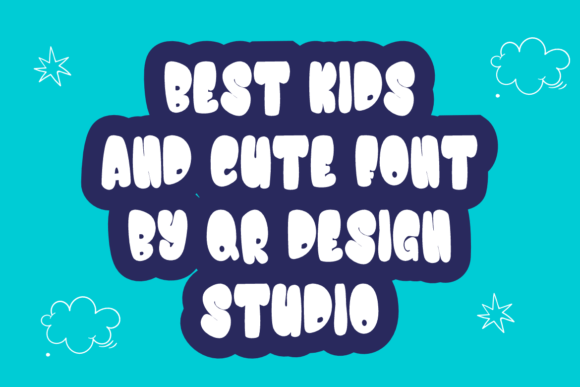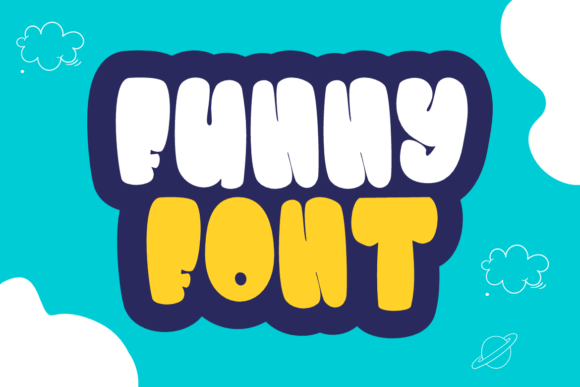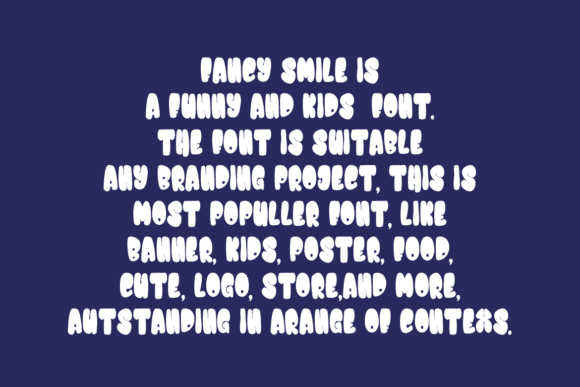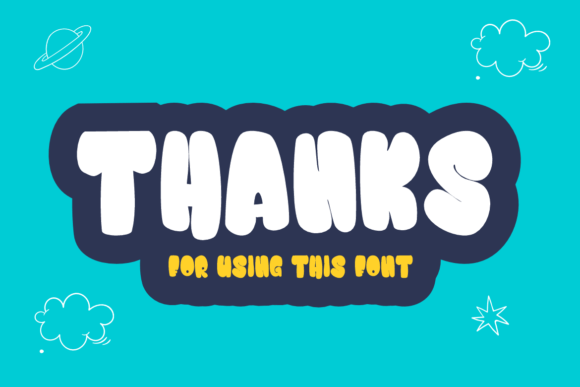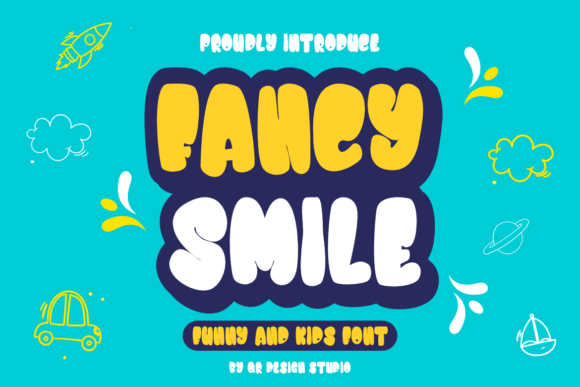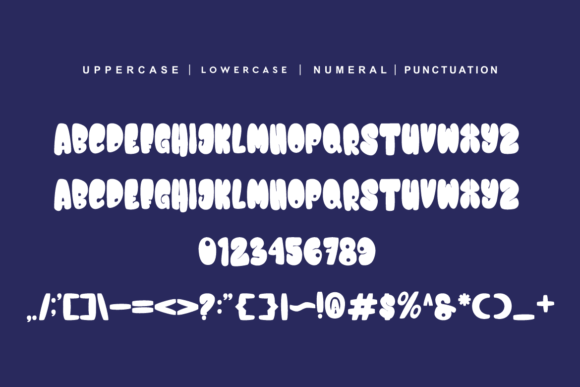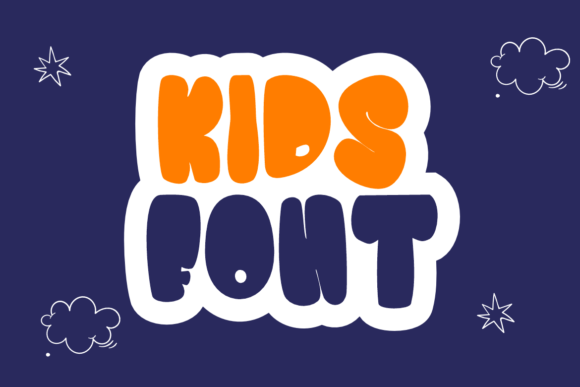
Fancy Smile Font
Fancy Smile is a delightful and stylish font that adds a cheerful and sophisticated touch to any creative project, perfect for personalized branding and invitations. Read more
Fancy Smile is a charming handwritten font designed to bring joy and elegance to your designs. With its flowing curves and playful style, it’s ideal for branding, greeting cards, wedding invitations, and more. This versatile font combines fun and finesse, making every project look polished yet approachable, enhancing the personal connection in your creative work.shopify+1